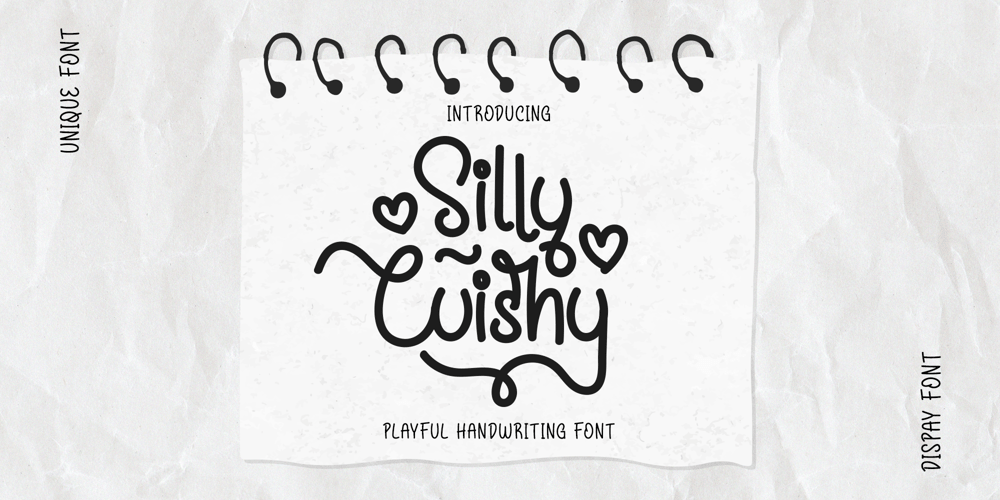
Silly Cuishy Font Family was designed by Virgiawan Listanto and published by Inviline. Silly Cuishy contains 1 styles and family package options. Playful handwriting fonts blend whimsy with personality, featuring unique letterforms and fluid curves. Perfect for invitations, branding, and social media, they evoke warmth and creativity, making designs feel personal and inviting. A popular choice in the creative market.